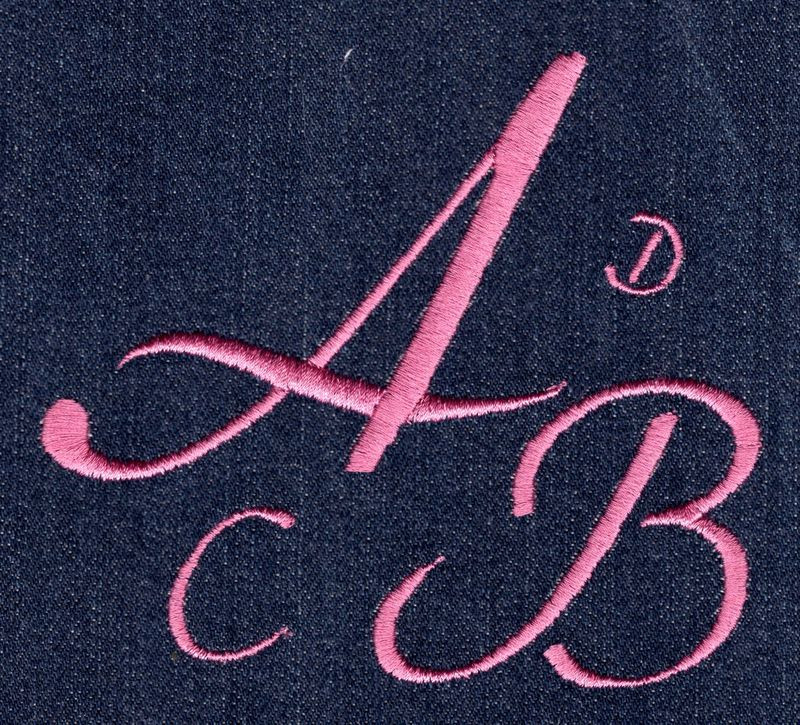
313 Arabella Satin Font
Arabella Satin Font comes in 0.5", 1", 1.5", 2", 2.5" & 3". All sizes are based on the capital "A" with all other letters sized proportionally. All sizes are finished in regular satin stitch. All characters individually fit in standard 4x4 hoops.